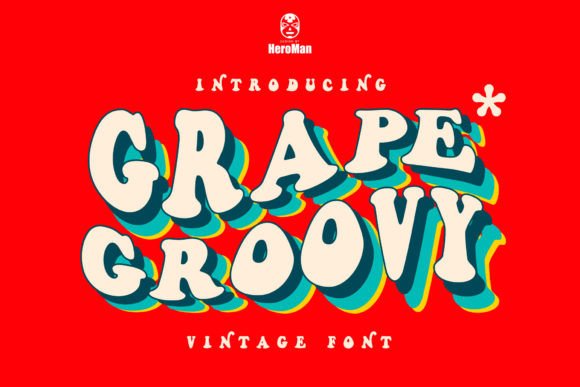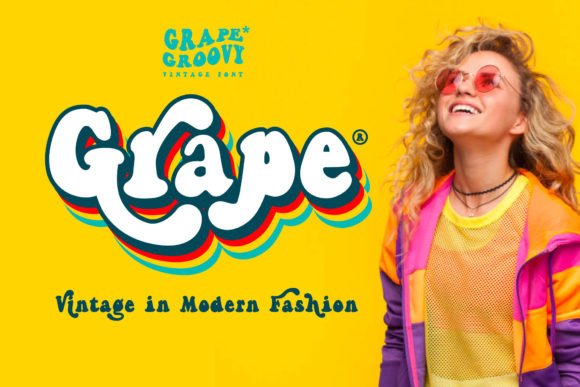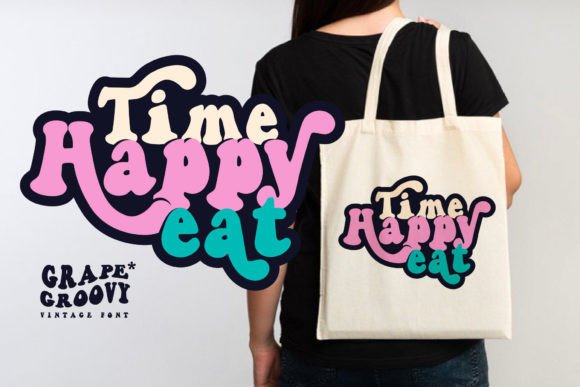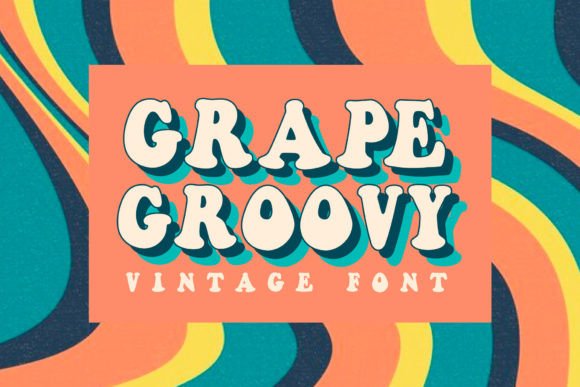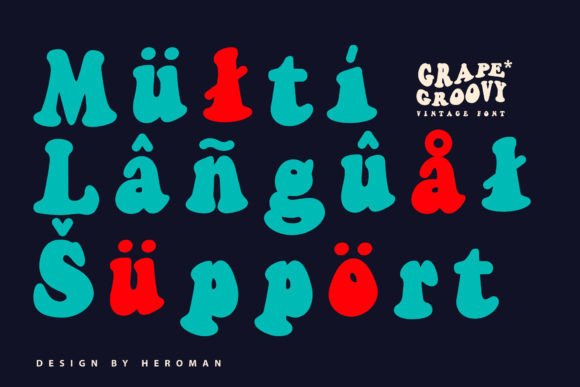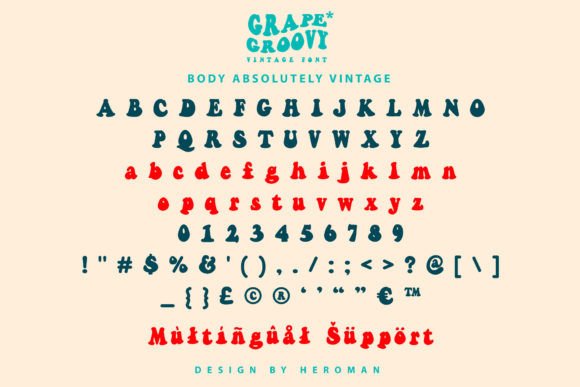
Introducing Grape Groovy Font: The Ultimate Retro Display Font for Creative Projects
Are you on the hunt for a font that can add a dash of playfulness and retro charm to your designs? Look no further than Grape Groovy Font! This versatile and eye-catching font is perfect for a wide range of applications, from greeting cards and headlines to logos, crafting, and wedding invitations. In this article, we’ll dive into the world of Grape Groovy Font and explore its features, benefits, and uses.
What is Grape Groovy Font?
Grape Groovy Font is a carefully crafted display font that embodies the spirit of the retro era. Its unique and playful design makes it an excellent choice for designers and crafters looking to add a touch of nostalgia to their projects. With its bold and eye-catching appearance, Grape Groovy Font is sure to grab attention and leave a lasting impression.
Key Features of Grape Groovy Font
- Versatile: Grape Groovy Font is a versatile font that can be used in a variety of applications, from digital designs to print materials.
- Playful: The font’s playful design makes it perfect for projects that require a touch of whimsy and fun.
- Retro: Grape Groovy Font’s retro charm is sure to transport your designs back to the good old days.
Uses of Grape Groovy Font
Grape Groovy Font is perfect for a wide range of applications, including:
- Greeting cards: Add a touch of playfulness to your greeting cards with Grape Groovy Font.
- Headlines: Use Grape Groovy Font to create eye-catching headlines that grab attention.
- Logos: Create unique and memorable logos with Grape Groovy Font.
- Crafting: Add a touch of retro charm to your crafting projects with Grape Groovy Font.
- Wedding invitations: Make your wedding invitations stand out with Grape Groovy Font.
- Branding: Use Grape Groovy Font to create a consistent brand identity.
- Stickers: Create fun and playful stickers with Grape Groovy Font.
Benefits of Using Grape Groovy Font
By using Grape Groovy Font, designers and crafters can enjoy a range of benefits, including:
- Unique designs: Grape Groovy Font allows you to create unique and eye-catching designs that stand out from the crowd.
- Time-saving: The font’s ease of use saves you time and effort, allowing you to focus on other aspects of your project.
- Consistency: Use Grape Groovy Font to create a consistent design language across your projects.
- Professional results: Grape Groovy Font helps you achieve professional-looking results, even if you’re a beginner.
Tips for Using Grape Groovy Font
To get the most out of Grape Groovy Font, here are some tips to keep in mind:
- Experiment with colors: Grape Groovy Font looks great in a variety of colors, so don’t be afraid to experiment and find the perfect hue for your project.
- Mix and match: Combine Grape Groovy Font with other fonts to create a unique and interesting design.
- Keep it simple: Don’t overcomplicate your design – sometimes, simplicity is the best way to let Grape Groovy Font shine.
| Font Name | Grape Groovy Font |
| Author | HeroMan |
Grape Groovy Font is a versatile, playful, and retro display font that’s perfect for a wide range of applications. With its ease of use, unique design, and range of benefits, it’s an excellent choice for designers and crafters looking to add a touch of nostalgia to their projects. Whether you’re creating greeting cards, headlines, logos, or crafting projects, Grape Groovy Font is sure to deliver professional-looking results that will leave a lasting impression.